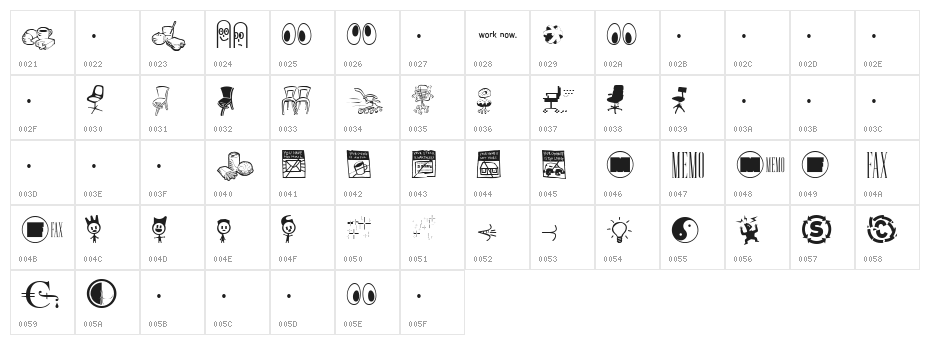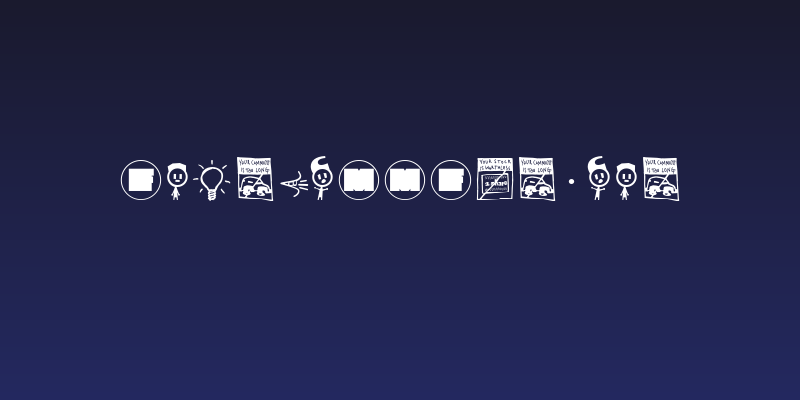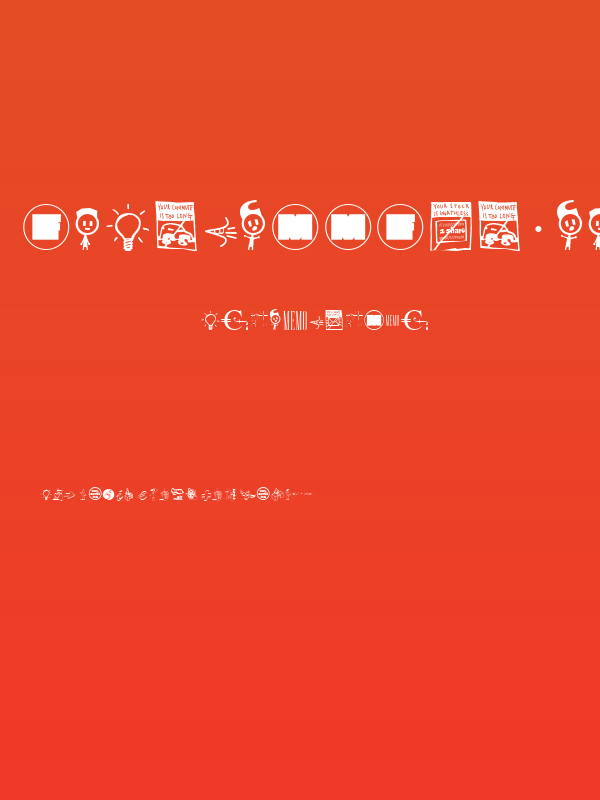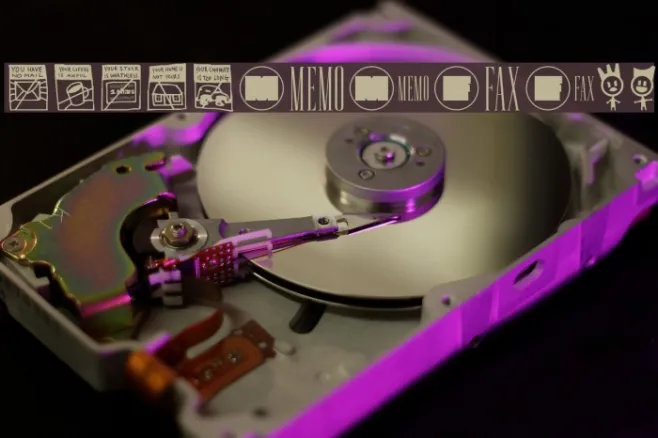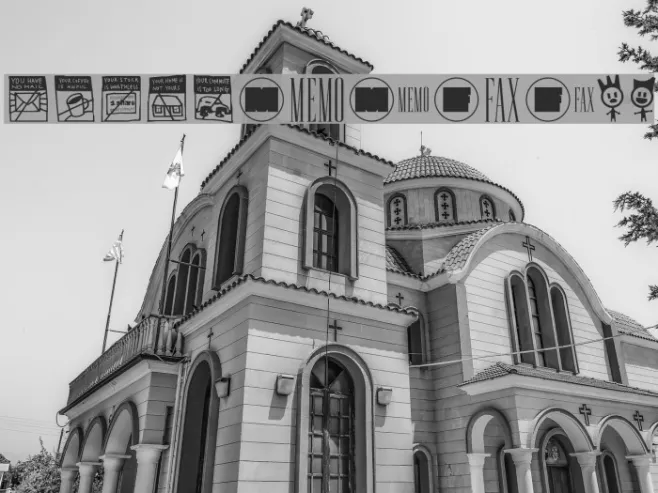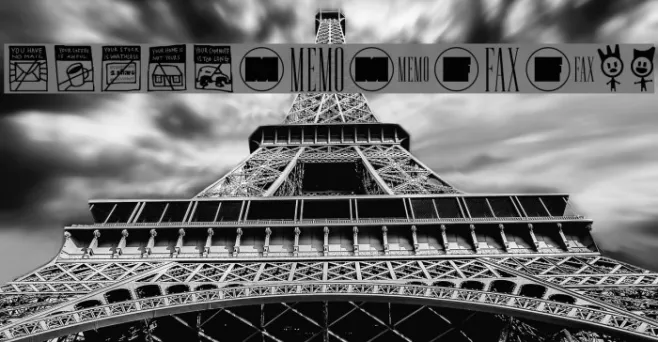
InterOffice-One Font
InterOffice-One Description
This is a decorative and playful font featuring a variety of unique and whimsical icons and symbols. Each character is represented by a distinct graphic, ranging from office-related images like memos and fax machines to quirky illustrations such as chairs, people, and abstract designs. The style is bold and eye-catching, making it suitable for creative projects that require a fun and informal touch. The font's diverse range of symbols can be used to add visual interest and humor to designs, making it ideal for informal communications, creative presentations, and artistic projects.
| Use Case | Logos, Creative presentations, Informal communications |
| Proposed Projects | Ideal for creative presentations, informal communications, artistic projects, and any design requiring a playful touch. |